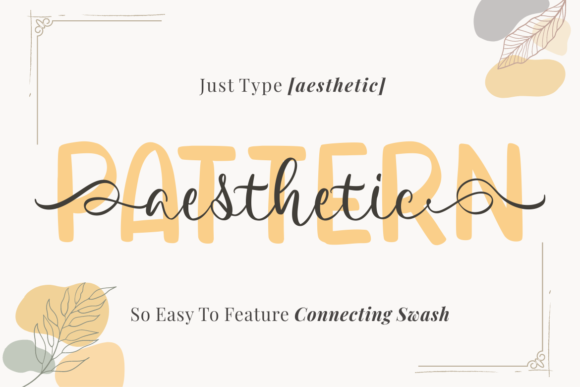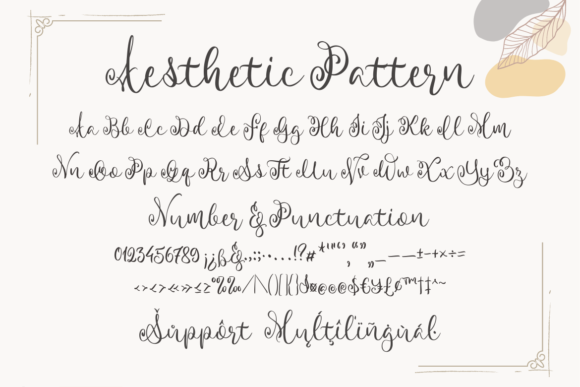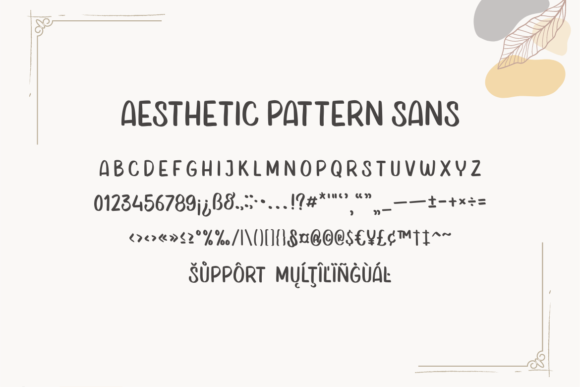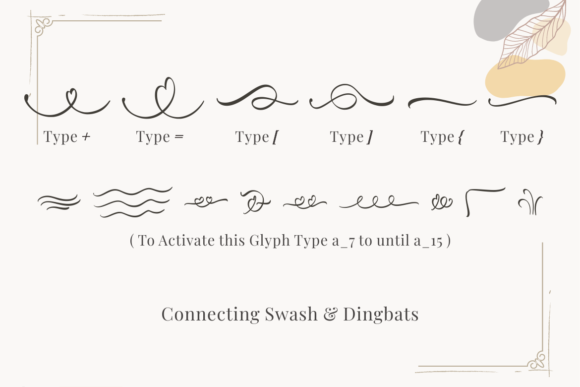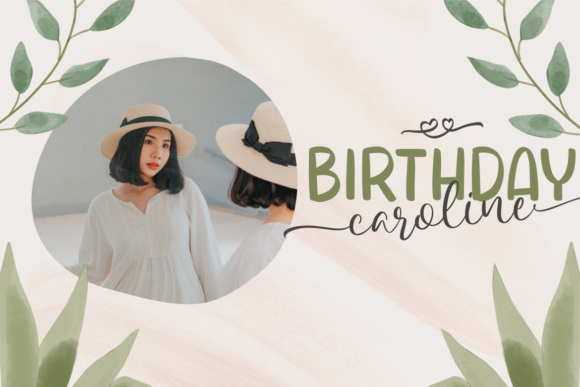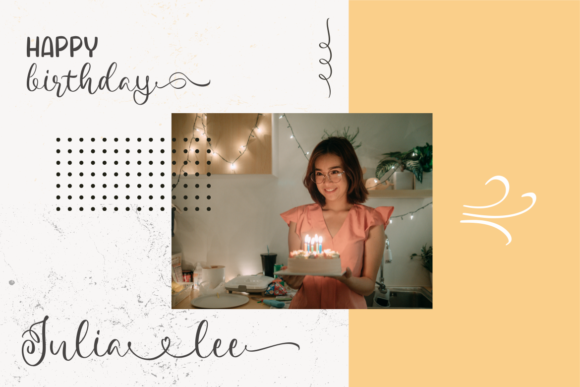
Aesthetic Pattern Duo Font: Elevate Your Designs with Elegance
In the realm of typography, few font combinations can evoke the same level of sophistication and charm as the Aesthetic Pattern Duo Font. This exquisite duo, consisting of a script and a sans serif font, is meticulously crafted to infuse a romantic touch into a wide array of design projects. Whether you’re creating greeting cards, headlines, or any other visual masterpiece, the Aesthetic Pattern Duo Font is your gateway to elegance and refinement.
Unveiling the Aesthetic Pattern Duo Font
The Aesthetic Pattern Duo Font is not just a typeface; it’s an experience. It’s a thoughtful blend of a delicate script font and a clean sans serif font, designed to complement each other in a harmonious dance of curves and lines. The script font exudes fluidity and grace, perfect for adding a personal and intimate feel to your designs. On the other hand, the sans serif font brings a touch of modernity and simplicity, ensuring your creations remain crisp and clear.
One of the standout features of the Aesthetic Pattern Duo Font is its incredible versatility. It’s a font duo that can seamlessly transition across various design applications. Here are a few ways you can leverage this amazing font:
- Greeting Cards: Add a touch of personal warmth to your greeting cards, making them special for occasions like weddings, anniversaries, or birthdays.
- Headlines: Elevate your editorial designs with stylish and eye-catching headlines that are sure to captivate your audience.
- Branding: Use the Aesthetic Pattern Duo Font to create a unique brand identity that speaks of elegance and sophistication.
- Stationery: From invitations to thank you cards, add a dash of romance and style to your stationery designs.
- Digital Content: Enhance your digital platforms, such as blogs or social media posts, with beautiful typography that draws readers in.
Why Choose Aesthetic Pattern Duo Font?
Choosing the right font for your design project can be daunting, given the plethora of options available. However, the Aesthetic Pattern Duo Font stands out for several compelling reasons:
- Romantic Touch: It adds a unique romantic flair to your designs, making them memorable and impactful.
- Readability: The sans serif component ensures clarity and readability, making it perfect for both headings and body text.
- Customization: The duo font allows for a high degree of customization, enabling you to mix and match the script and sans serif fonts to suit your design needs.
- Timeless Appeal: The classic elegance of the Aesthetic Pattern Duo Font ensures that your designs remain timeless, avoiding the fleeting nature of trendy typography.
Tips for Using Aesthetic Pattern Duo Font
To make the most of the Aesthetic Pattern Duo Font, consider the following tips:
- Mix and Match: Combine the script and sans serif fonts in a single design to create visual interest and hierarchy.
- Play with Sizes: Experiment with different font sizes to emphasize certain elements of your design.
- Color Matters: Choose colors that complement the elegance of the font, such as soft pastels, rich jewel tones, or classic black and white.
- Less is More: While it’s tempting to use the font across all elements of your design, restraint can often lead to more impactful results.
| Font Name | Aesthetic Pattern Duo Font |
| Author | a piece of cake |
The Aesthetic Pattern Duo Font is a powerful tool in the hands of designers and crafters. Its elegant script and crisp sans serif components offer a versatile solution for a myriad of design projects. By incorporating this beautiful duo font into your work, you’re not just choosing a typeface; you’re embracing a design philosophy that values beauty, readability, and emotional connection. Elevate your designs with the Aesthetic Pattern Duo Font and discover a world where elegance meets creativity.